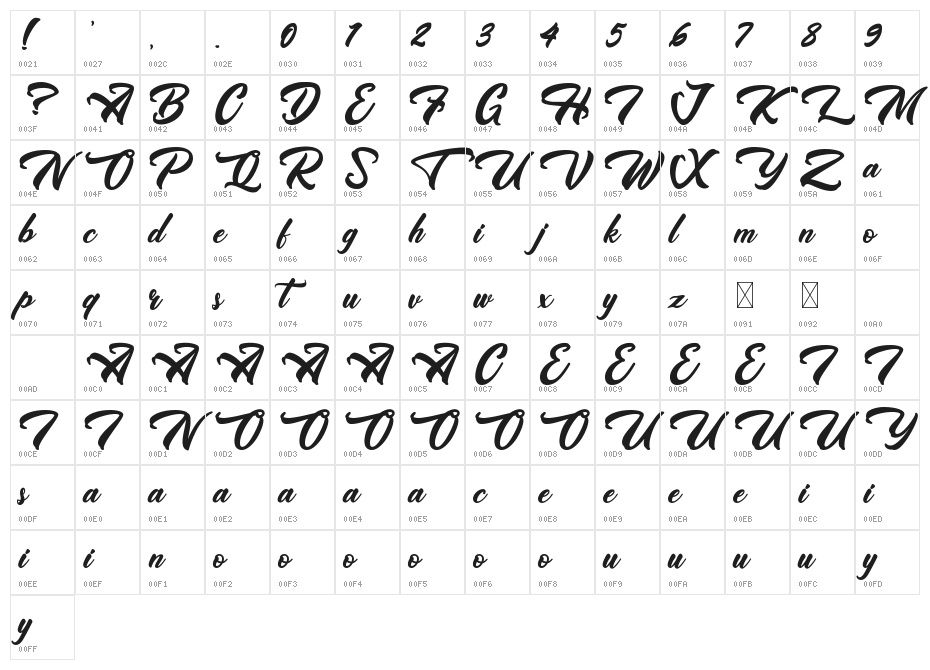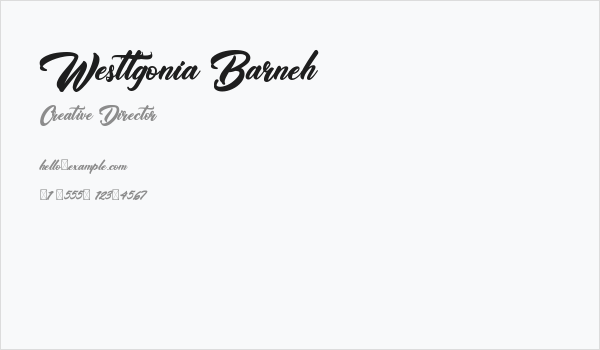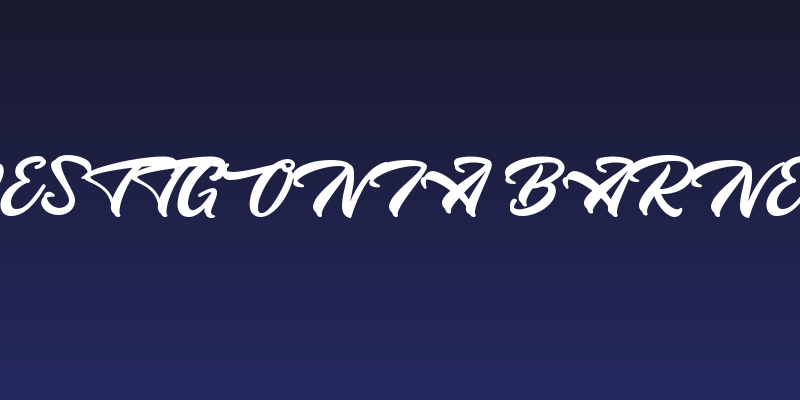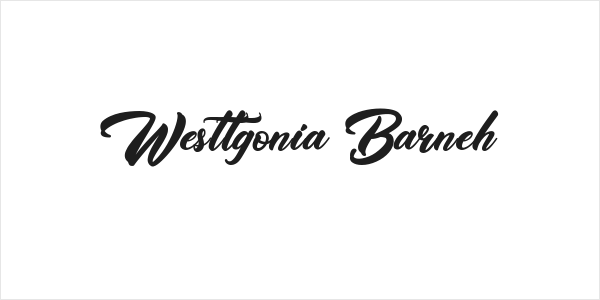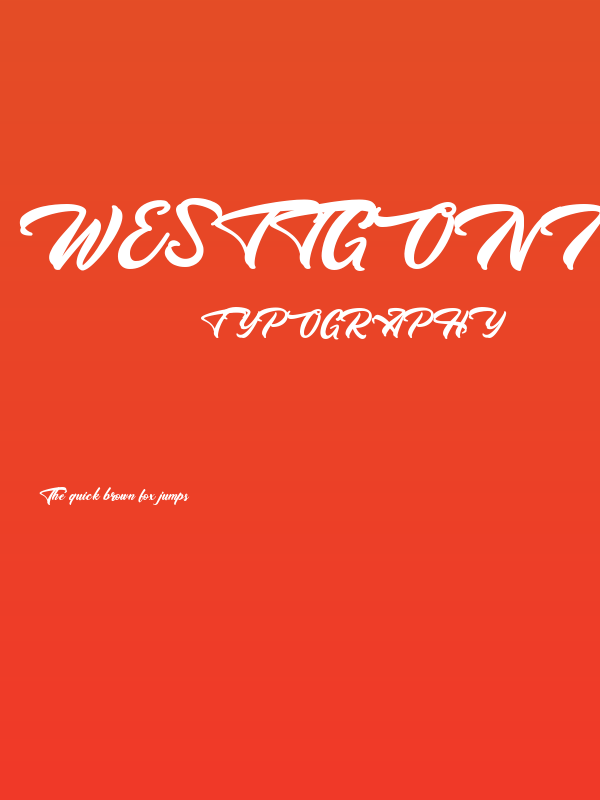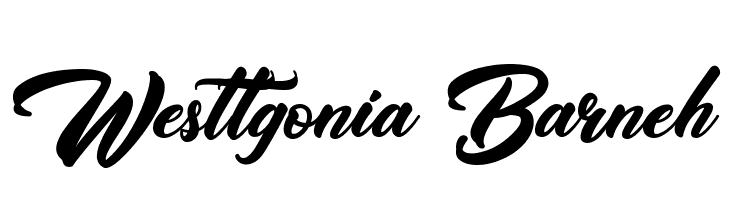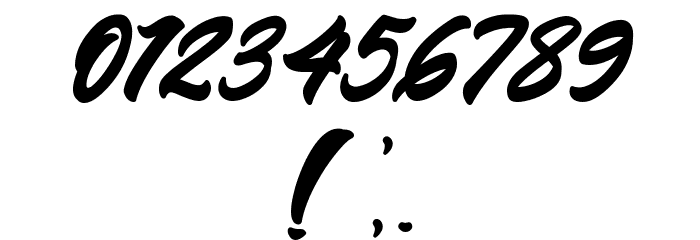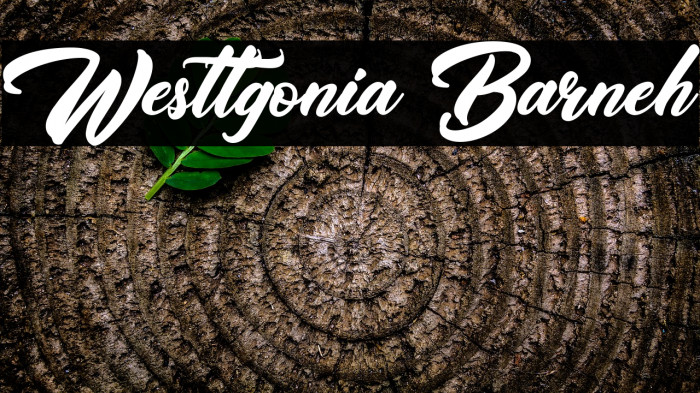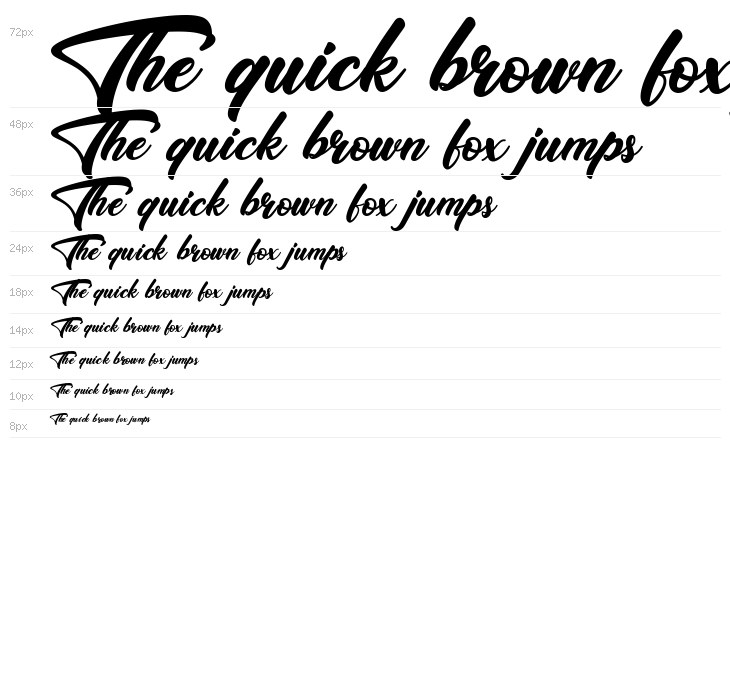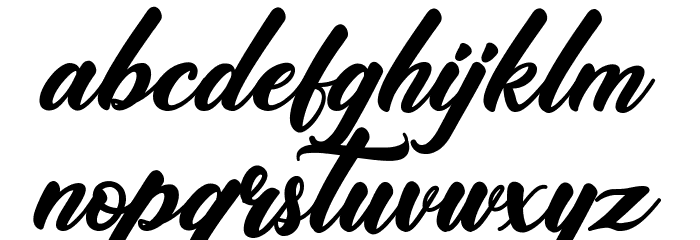
Westtgonia Barneh Font
Westtgonia Barneh Description
This font exudes a bold and dynamic script style, characterized by its flowing, cursive letterforms that convey a sense of elegance and movement. The uppercase letters are particularly striking, with sweeping curves and a slight slant that adds to the overall fluidity. The lowercase letters maintain this cursive style, ensuring consistency and readability. The numerals are equally bold, with a playful yet sophisticated appearance. Special characters are integrated seamlessly, maintaining the font's cohesive aesthetic. This font is perfect for projects that require a touch of sophistication and flair.
| Overall Style | Elegant, Dynamic |
| Use Case | Logos, Invitations, Branding |
| Proposed Projects | Ideal for wedding invitations, branding, logo design, and elegant packaging. |